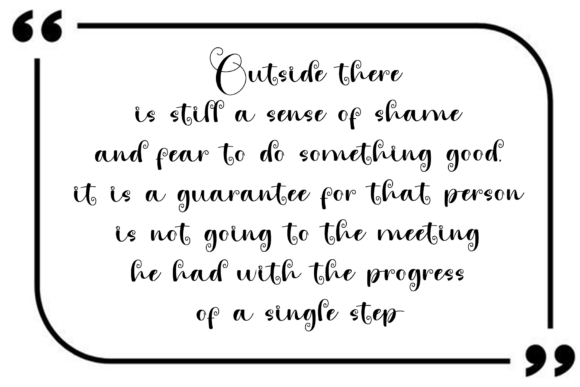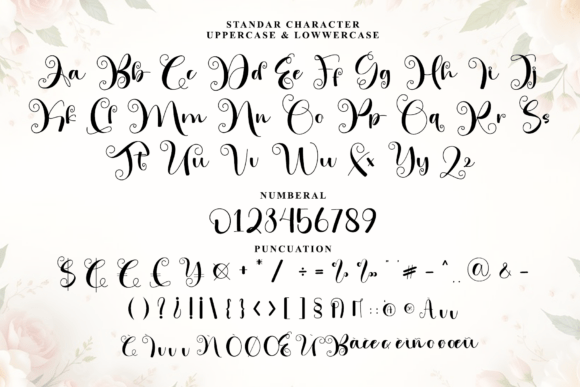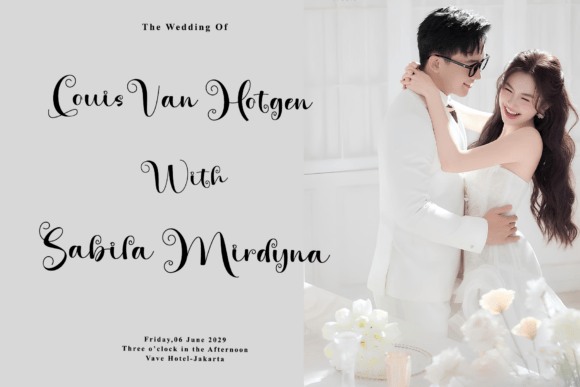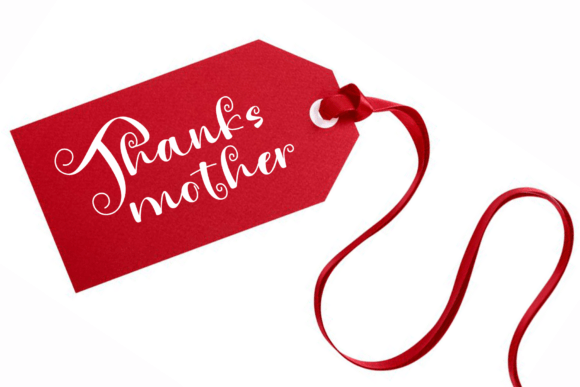
The Magic of Actually Christmas Font: A Designer’s Delight
- ✨ Unique and Beautiful Touch: Every letter in Actually Christmas font has a unique and beautiful touch, which makes it perfect for creating eye-catching logos, branding, and quotes.
- ✅ Timeless and Versatile: This font is not just for Christmas; it’s a timeless handwritten font that can be used for various design projects throughout the year.
- 🎉 Easy to Read and Pair: The font is easy to read, even at smaller sizes, and pairs well with a variety of other fonts, making it a great addition to any designer’s toolkit.
While Actually Christmas font is amazing, there are a few things to keep in mind: ⚠️ It may not be the best choice for very formal or corporate designs, as it has a more playful and whimsical feel. 🤔 Additionally, some of the more intricate details may not render well at very small sizes.
The Story Behind Actually Christmas Font
Actually Christmas font was designed with love and care by a talented type designer who wanted to create a font that would capture the magic and spirit of the holiday season. The designer drew inspiration from traditional handwritten fonts, combined with modern twists and unique touches to create a truly special font.
| Font Name | Actualy Christmas Font |
| Author | Sansana |
| What is Actually Christmas font best used for? | Actually Christmas font is best used for creating eye-catching logos, branding, quotes, and festive designs. |